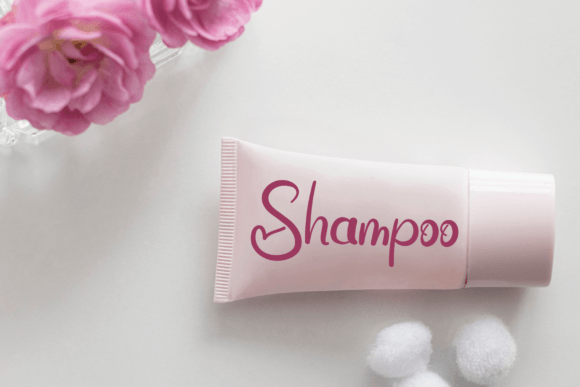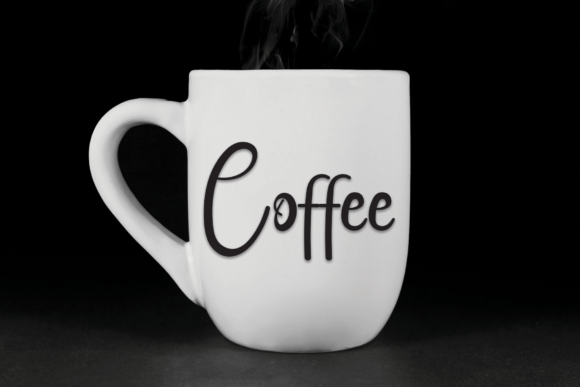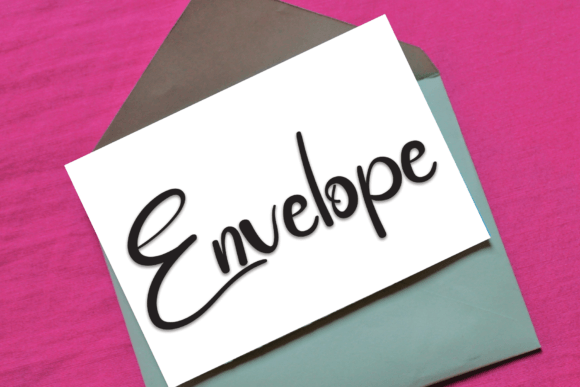
Baby Ghost Font
About Baby Ghost Font
Baby Ghost Font is a sweet and playful handwritten typeface that adds personality to your designs. With smooth strokes and a cheerful vibe, this font feels approachable and fun. It’s an ideal choice for creative projects where a casual and lighthearted tone is needed.
Designed for Versatile Projects
Whether you’re working on crafts, digital artwork, or personalized cards, Baby Ghost Font adapts beautifully. For example, you can use it in party decorations, product packaging, or greeting cards. Additionally, it works well on social media posts, especially when you want your text to stand out.
This font maintains great readability thanks to its clean letterforms. Therefore, it’s suitable for both headlines and smaller body text. You can apply it across different backgrounds and themes without sacrificing clarity.
Bring Warmth to Your Designs
Because of its handwritten style, this font gives designs a personal and authentic touch. As a result, your messages feel more intimate and expressive. If you’re creating designs for birthdays, holiday events, or children’s projects, Baby Ghost Font adds charm without overwhelming the design.
Perfect for Print and Digital Use
Use Baby GhostFont in:
• Custom greeting cards
• Printable decor
• T-shirt and mug designs
• Social media graphics
• DIY gift tags and invitations
• Branding for fun, family-friendly products
It also includes well-balanced characters that keep your designs looking polished. Moreover, the font remains consistent even when used in different formats or sizes.